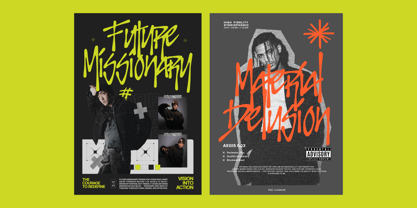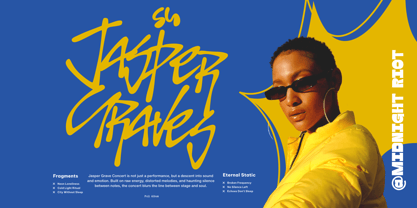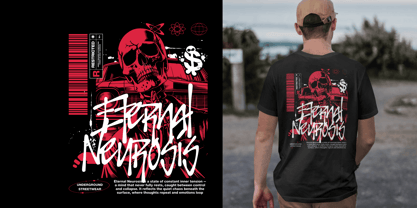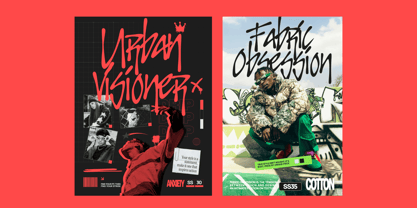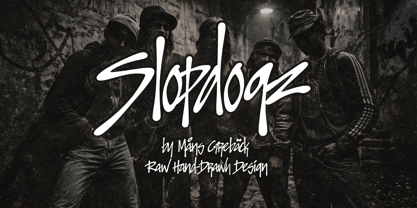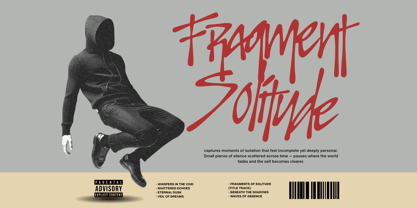
Slopdogz
Slopdogz is a raw, hand-drawn font with an aggressive flow and a loose, street-level attitude. The letterforms are written in sharp motion, with uneven pressure, fast strokes, and a slightly reckless rhythm. Each character carries the texture of a marker dragged across rough surface, giving the type a nervous energy that looks alive. The uppercase and lowercase sets keep a consistent personality while allowing variation, so words never feel stiff or repetitive. There’s a sense of late-night walls, underground scenes, and handmade statements in the shapes. The font reads clearly, but never quietly — it looks like it was written quickly, with intent, and left exactly as it landed. Slopdogz is drawn by hand by Måns Grebäck, aiming to keep the imperfections intact rather than smoothing them out. The goal was to capture the feeling of spontaneous lettering, where instinct matters more than symmetry, and character comes from the small inconsistencies. The font is built with advanced functionality and guaranteed top-notch quality, containing stylistic and contextual alternates, ligatures and more automatic and manual features; all to give you full control and customizability. It has extensive lingual support, covering all Latin-based languages, from North Europa to South Africa, from America to South-East Asia. It contains all characters and symbols you'll ever need, including all punctuation and numbers.
Måns Grebäck is a type designer and font creator specializing in script typography, but with a portfolio containing a vast selection of styles. Typefaces from Måns Grebäck are used as company and product logotypes, as well as headlines and in advertisement by a wide range of industries world-wide. Founded by Måns Grebäck in 2010, Mans Greback AB originally went under the name of Mawns Fonts and later Aring Typeface AB. While the foundry has its seat Örebro, Sweden, Måns also lives in Portugal. The Premium Foundry page can be viewed Here.